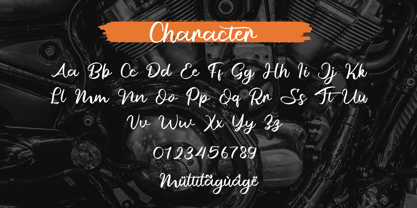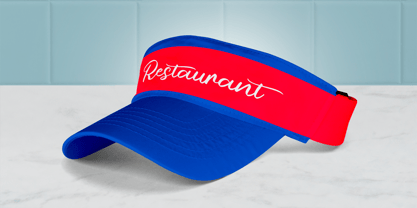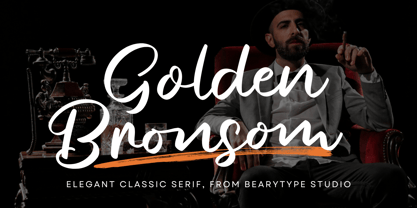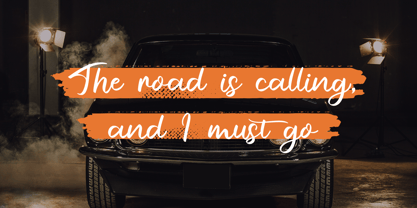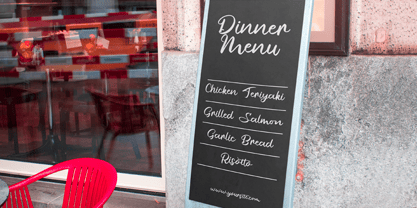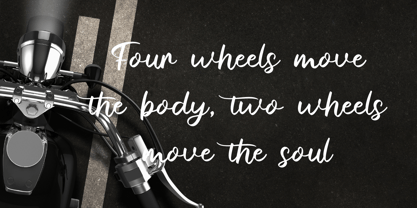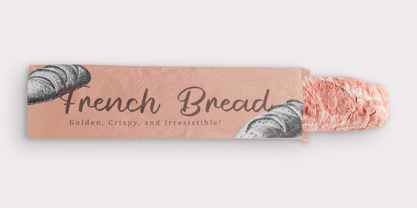
Golden Bronsom
by Beary
The Golden Bronsom Font Family was designed by Dian Haniffan Hadi and published by Beary. Golden Bronsom contains 1 styles.
Golden Bronsom – Elegant Classic Serif, from Bearytype Studio, perfect for any project like: logos, branding projects, homeware designs, product packaging, mugs, quotes, posters, shopping bags, t-shirts, book covers, business cards, invitation cards, greeting cards, labels, photography, watermarks, special events, and all your other luxury projects that require a premium touch